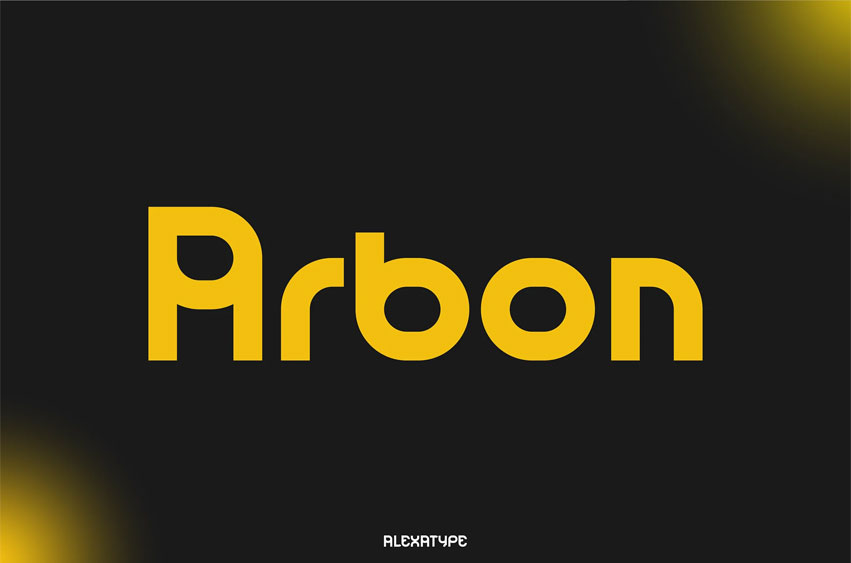
Arbon Font is a modern tech font that radiates confidence, logic, and precision. Built with clean geometric proportions and futuristic detailing, it captures the spirit of high-performance design, making it perfect for software branding, digital dashboards, AI projects, and space-age UI concepts. The letterforms feature consistent curvature with tight, controlled terminals that feel both ergonomic and digitally native.
Its visual rhythm is designed for high readability while still holding a distinct personality, bridging utilitarian simplicity with bold innovation. Whether you’re building a brand system or a product interface, Arbon keeps your message modern and direct.
Arbon fits seamlessly into tech-forward environments. From startup launch visuals to smart home packaging and futuristic product mockups, it amplifies digital clarity with contemporary boldness. Use it for cutting-edge SaaS dashboards, AI branding, or next-gen digital products where modernity and control are essential.
• Digitally Geometric Structure – Rounded yet consistent letterforms with pixel-friendly flow
• Futuristic & Functional – Ideal for UI/UX, apps, and digital products
• Engineered Clarity – Built with space and form balance for high screen readability
• Innovative Identity Builder – Distinct enough for branding, clean enough for interfaces